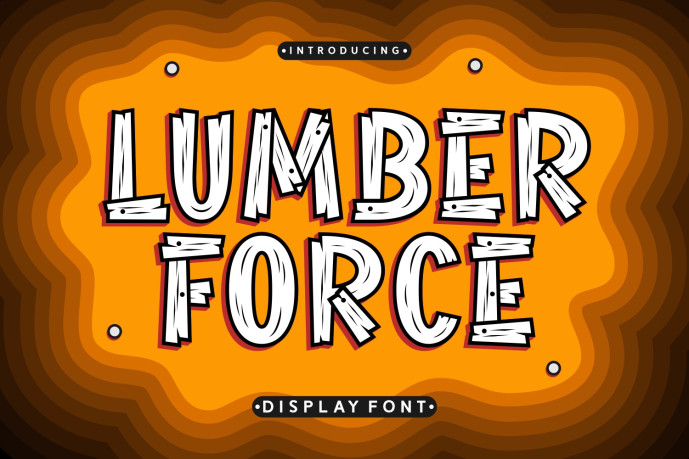
Lumber Force Font
Designer: Situjuh
Introducing “Lumber Force Font,” an extraordinary display typeface capturing the rugged charm of raw timber. This exceptional font is distinguished by its coarse, textured outlines and an intriguing three-dimensional, carved appearance. Every character in the alphabet exhibits a sculpted-from-wood quality, exuding an organic, handcrafted essence that differentiates it from standard, smooth-edge fonts. The robustness, toughness, and endurance embodied by the Lumber Force Font makes it a tangible representation of nature’s strength and artisan craftsmanship.
With a complete repertoire of uppercase and lowercase alphabets, numerals, a varied set of punctuation marks, symbols, and extensive multilingual support, this typeface promises adaptability across various mediums and languages. It is the ideal typographic selection for designers and businesses looking to broadcast a genuine, homespun allure or a robust texture.